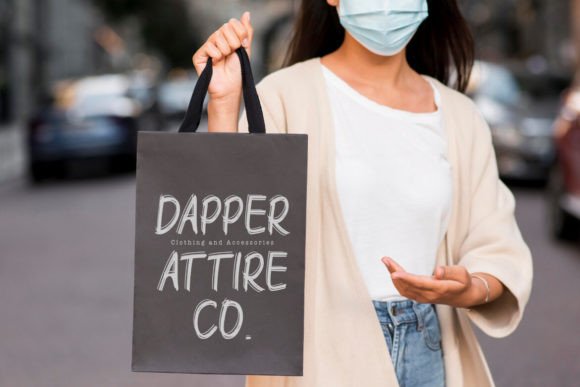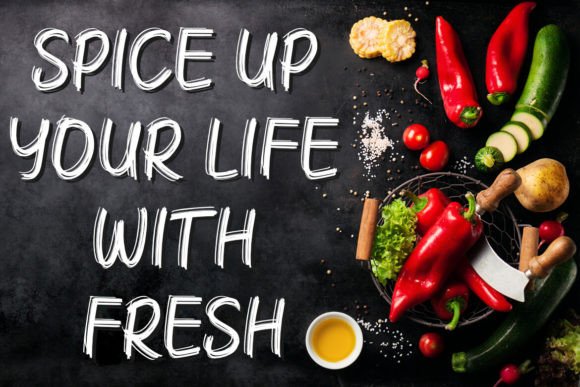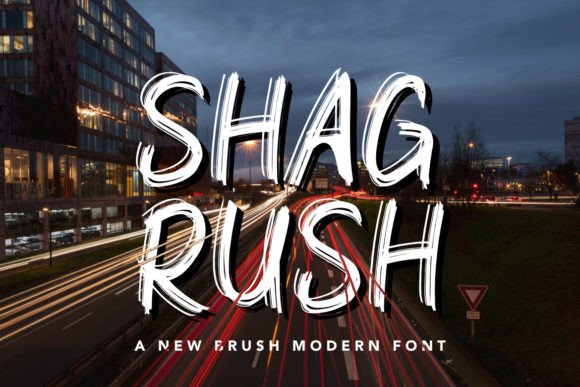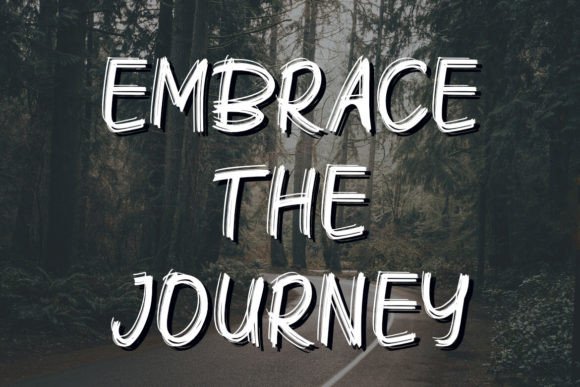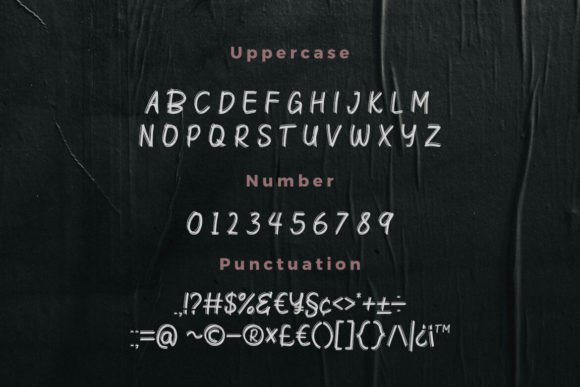
Introduction to Shagrush Font
Shagrush is a fun and trendy brush display font that adds flair to any design.
With its dynamic strokes and playful curves, it captures attention and exudes energy Perfect for posters, social media graphics, and branding, Shagrush infuses projects with a vibrant and contemporary vibe, making them stand out effortlessly.